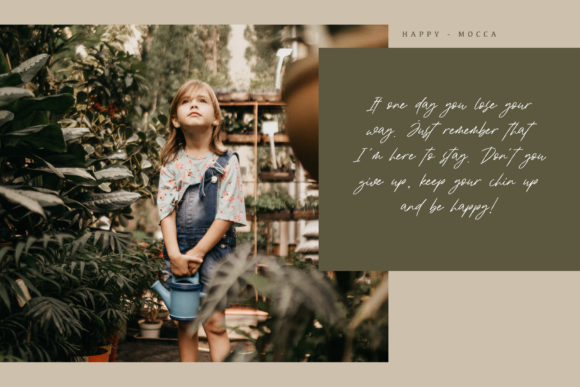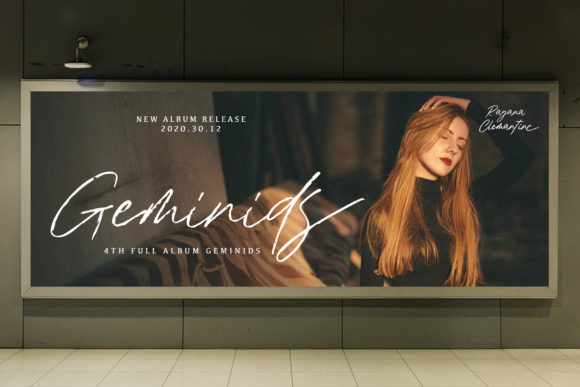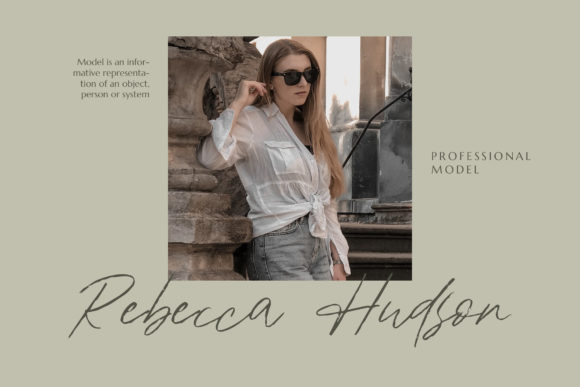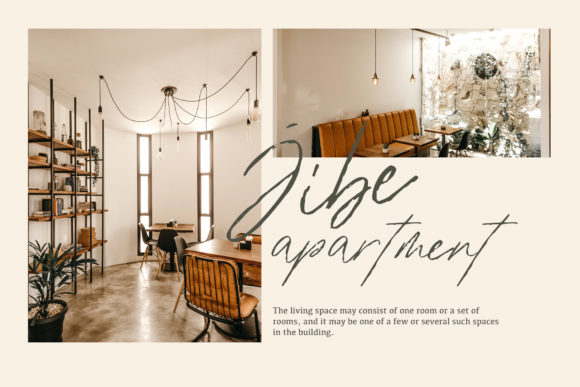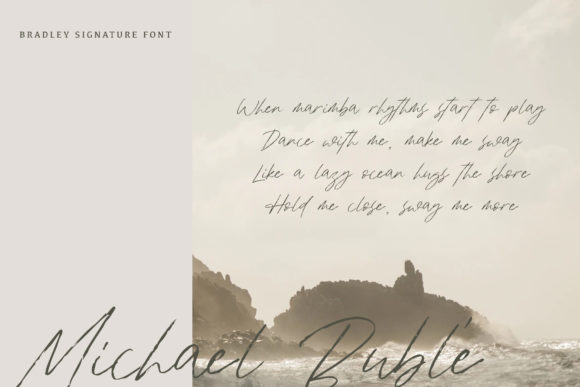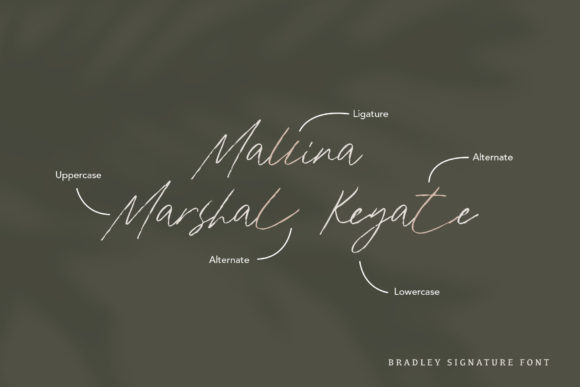
The Perfect Signature: Unveiling the Timeless Bradley Font
Have you ever sat down with a pen and paper, feeling the pressure to create the perfect signature? The one that screams ‘who I am’ and leaves a lasting impression? For many designers, finding the perfect font is a daunting task, but one that can make all the difference in a project’s success.
Enter the Bradley Font, a classic handwritten font that exudes elegance and sophistication. Designed for use in signatures, magazines, headlines, and more, this versatile font is a must-have for any designer looking to add a touch of personality to their work. Its beautiful lines and natural details make it perfect for a wide range of applications, from packaging and wedding cards to websites and publications.
Whether you’re a seasoned designer or just starting out, the Bradley Font is a valuable addition to any toolkit. Its timeless appeal and versatility make it a go-to choice for creatives looking to add a personal touch to their projects.
- Font Family: Bradley, Bradley Regular, Bradley Italic, Bradley Bold, Bradley Bold Italic
- Unique Characteristics: Bradley is a modern, elegant script font with a vintage flair, featuring connected letters and subtle flair at the ends of strokes.
Bradley Font Review
Overall, I think the Bradley Font is a solid choice for designers looking for a classic, elegant feel. Here are some things that work well:
- ✨ Beautiful typography: The Bradley Font features a refined, sophisticated aesthetic that’s perfect for luxury brands, high-end fashion, or any project where you want to convey a sense of sophistication.
- ✨ Highly legible: The font is well-designed for readability, making it suitable for body text, headings, or even display text.
- ✨ Compatible with various devices: Bradley Font is available in a range of weights and styles, ensuring it looks great on various screens and devices.
- ⚠️ Limited expressiveness: While the Bradley Font is great for conveying a sense of elegance, it may not be the best choice for projects that require a more playful or expressive tone.
- ⚠️ Limited language support: Bradley Font may not be as comprehensive in terms of language support, which could be a limitation for projects targeting non-English speaking audiences.
Overall, I think the Bradley Font is a great choice for designers who want a classic, elegant feel. While it may not be the most expressive or comprehensive font out there, it’s a solid choice for luxury brands or any project where you want to convey a sense of sophistication.
Tips for Getting the Most Out of Bradley Font
Use Bradley Font in combination with other design elements to create a cohesive look. Experiment with different font sizes, colors, and styles to add visual interest. Use Bradley Font in headings and subheadings to create a clear hierarchy of information.
Bradley Font is ideal for use in creative projects, such as:
- Posters and advertisements
- Websites and landing pages
Alternatives to Bradley Font
Bebas Neue is a sans-serif font that is great for use in headings and titles. It has a modern and clean design, making it perfect for digital designs. Bebas Neue is a good alternative to Bradley Font when you want a more contemporary look.
Comparison to Bradley Font: Bebas Neue has a more geometric and minimalist design compared to Bradley Font’s more classic and elegant look.
Playfair Display is a luxurious and elegant font that is perfect for use in titles and headings. It has a classic design with a touch of sophistication, making it great for high-end designs. Playfair Display is a good alternative to Bradley Font when you want a more luxurious and elegant look.